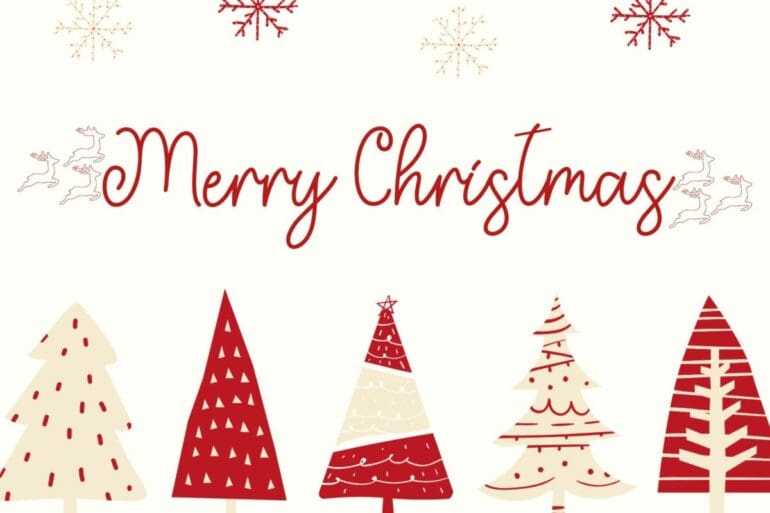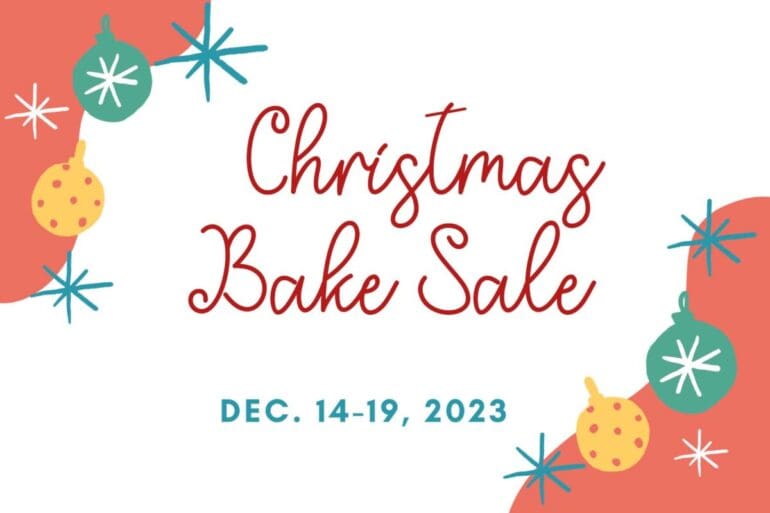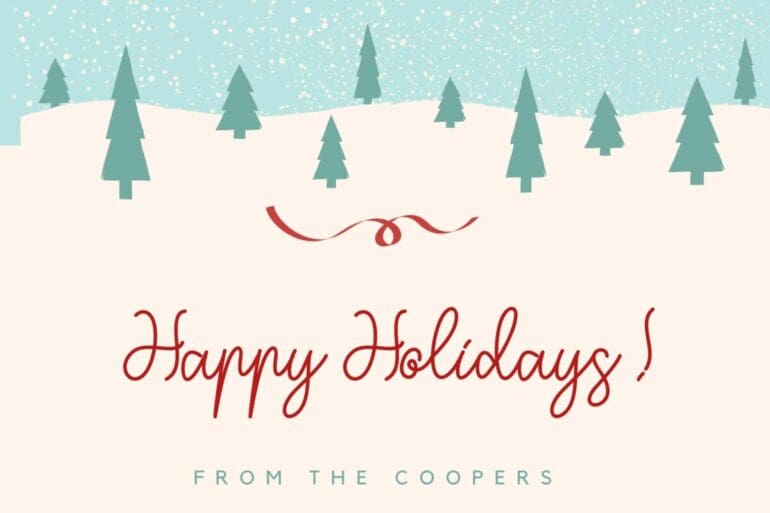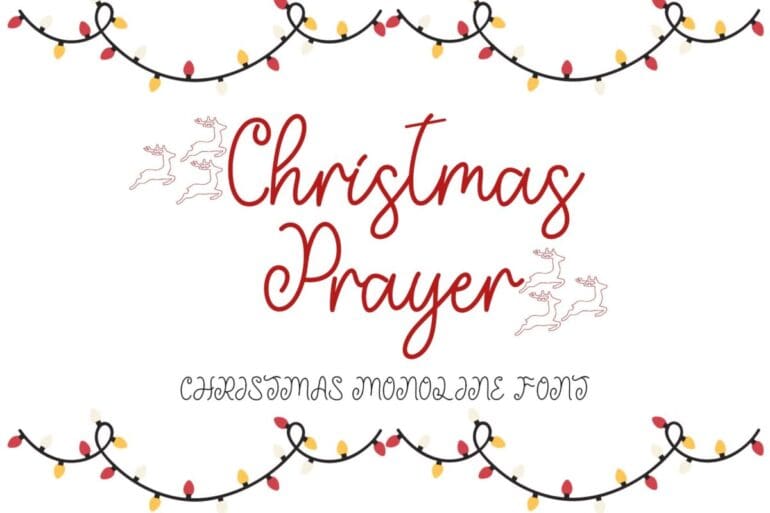
Christmas Prayer
Christmas Prayer is a monoline font decorated with letters in the shape of a jumping deer. This font is equipped with uppercase, lowercase, swash, titling, alternates, numerals, punctuations, multilingual support. Can be used for Christmas, weddings, invitations and more.